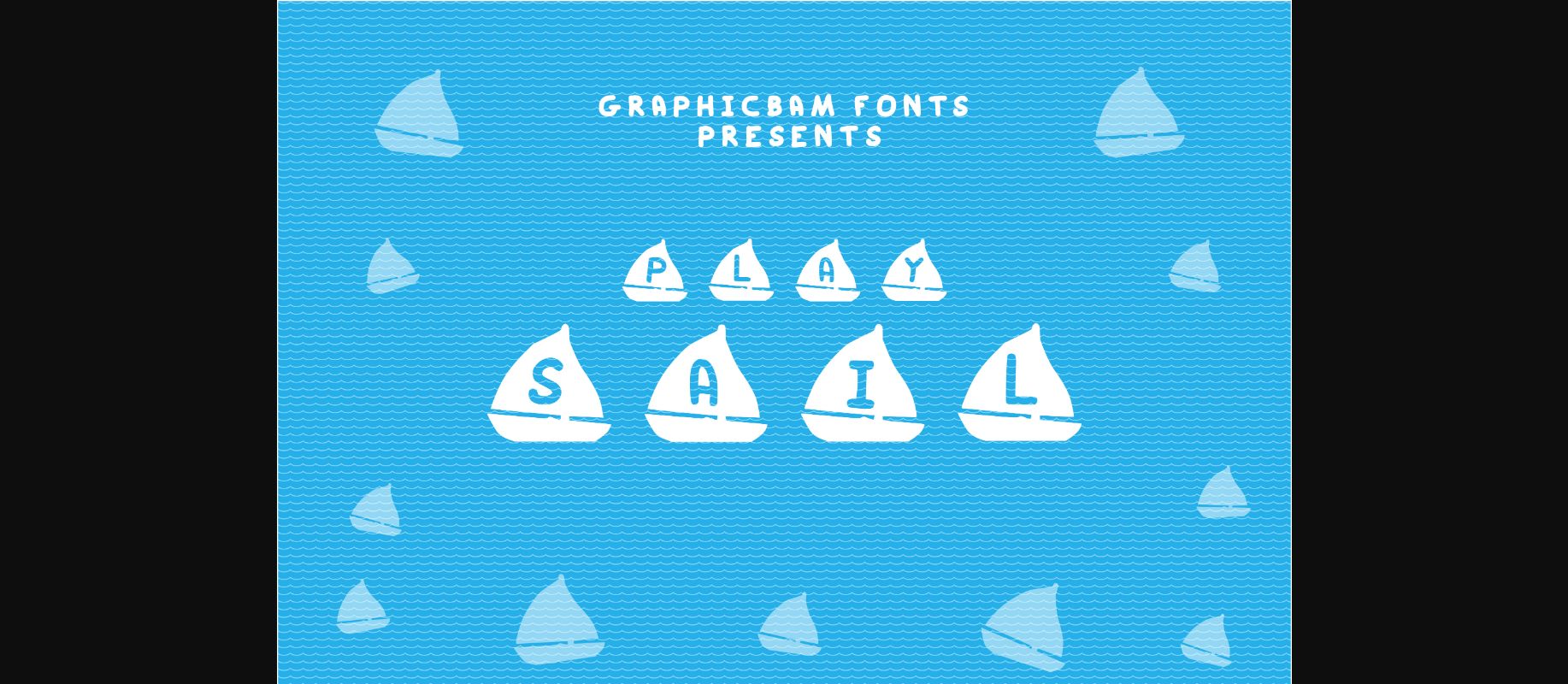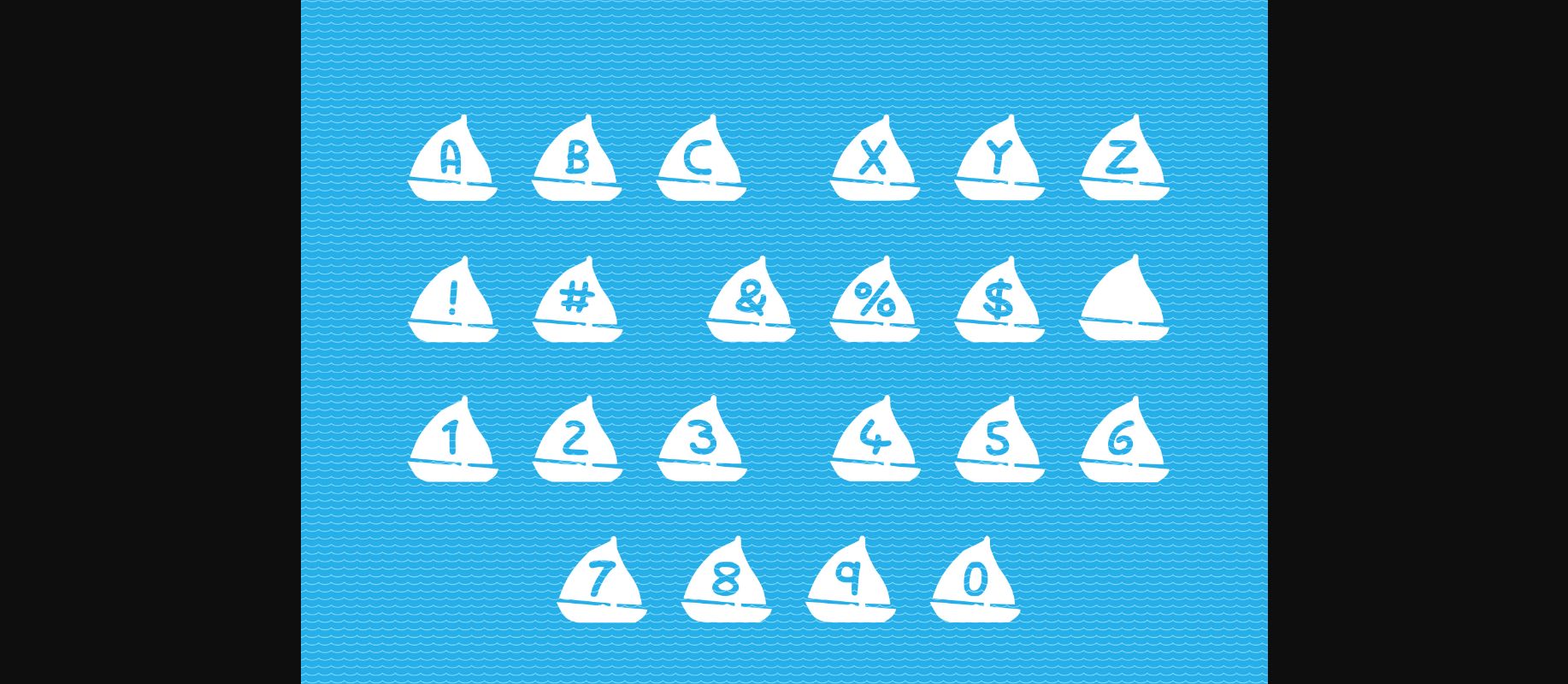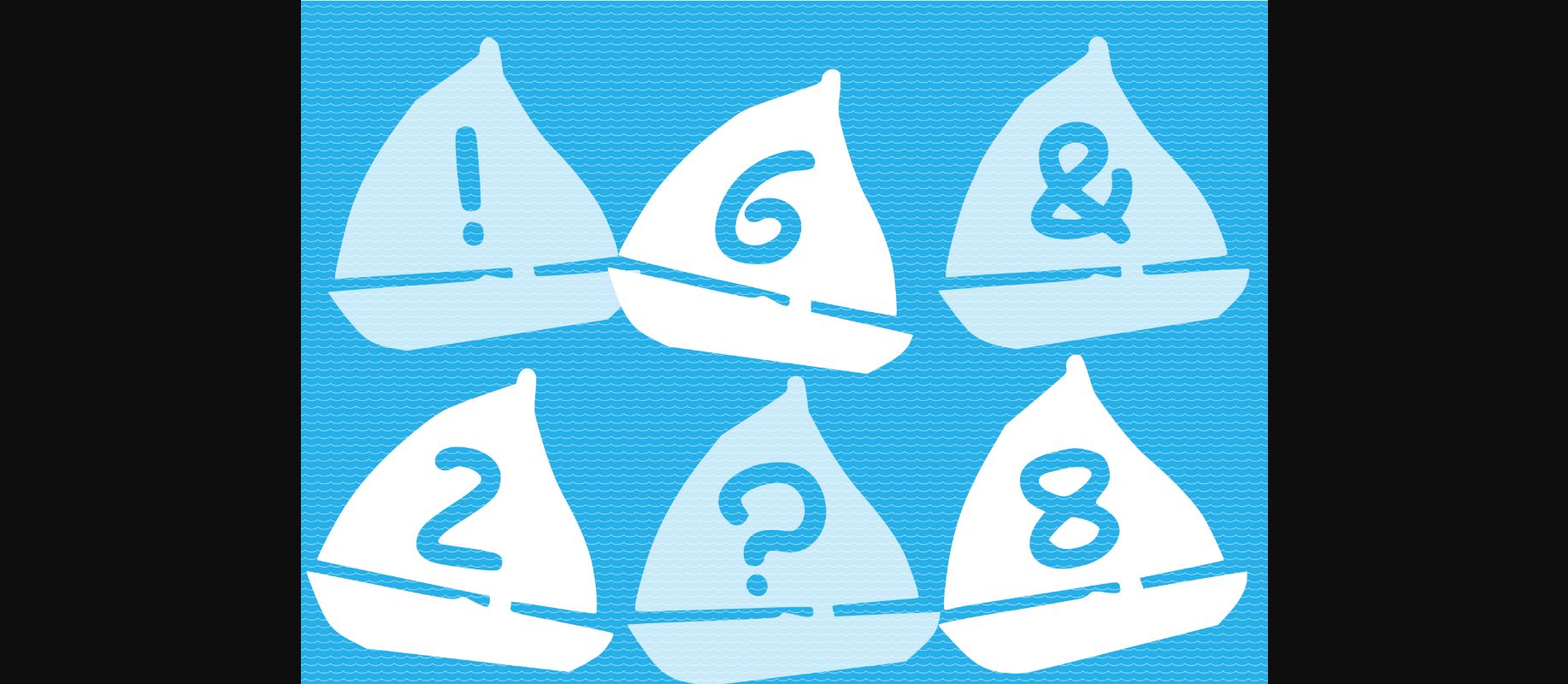
HomeDecorative FontsPlay Sail Font Decorative Fonts Play Sail Font FacebookXPinterestWhatsApp 1 of 5 ... Play Sail Font Poster 2... Play Sail Font Poster 3... Play Sail Font Poster 4... Play Sail Font Poster 5... About Play Sail Font Inviting and cute, Play Sail is the perfect decorative font for sea-related projects, and not only! Use it on a sailor’s birthday card, fishing items, navy projects, children’s designs, and more. DOWNLOAD NOW People also explored Gangtahu Font Palmspring Font Rutfle June Extra Bold Font Marline Script Font Metropolis Script Font Wedding Font Sadina Slab SC Font Tile8 Pattern Font Bedmiwoc Font 327 0 TagsPlay Sail Font Previous articlePlay Skull FontNext articlePlay Recycle Reuse Font LEAVE A REPLY Cancel reply Comment: Please enter your comment! Name:* Please enter your name here Email:* You have entered an incorrect email address! Please enter your email address here Website: Save my name, email, and website in this browser for the next time I comment. Personal Use Free Better Together Duo Personal Use Free Read more about this font Super Discount Personal Use Free Read more about this font Rina Personal Use Free Read more about this font Vanchrome Personal Use Free Read more about this font BLOG How to Cut Any Font on Cricut: Convert a Font to SVG (Free) Turn any font into a clean SVG so it cuts crisp on Cricut - a quick 3-step workflow using a free font-to-SVG tool. Free vs Paid Fonts: Why Investing in Premium Fonts Is Worth It How to Install and Use Fonts on Windows, macOS, and Web Projects Exploring Font Trends